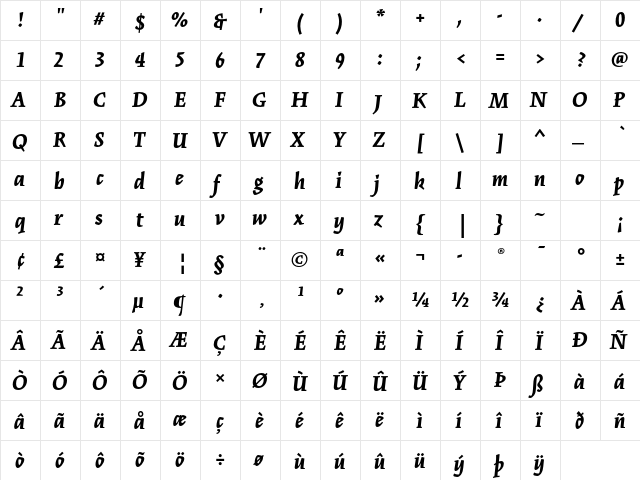
Kinesis Std Black Italic
| Designer | Mark Jamra |
Design Context for Kinesis Std Typeface
Kinesis Std offers clean, dependable letterforms without strong stylistic allegiance, making it a practical choice for designers who need flexibility. Its italic angle brings a sense of urgency and motion to the letterforms.
Pro Tip: Use Kinesis Std for emphasis, pull quotes, and subheadings where its slanted energy can add rhythm to the layout.